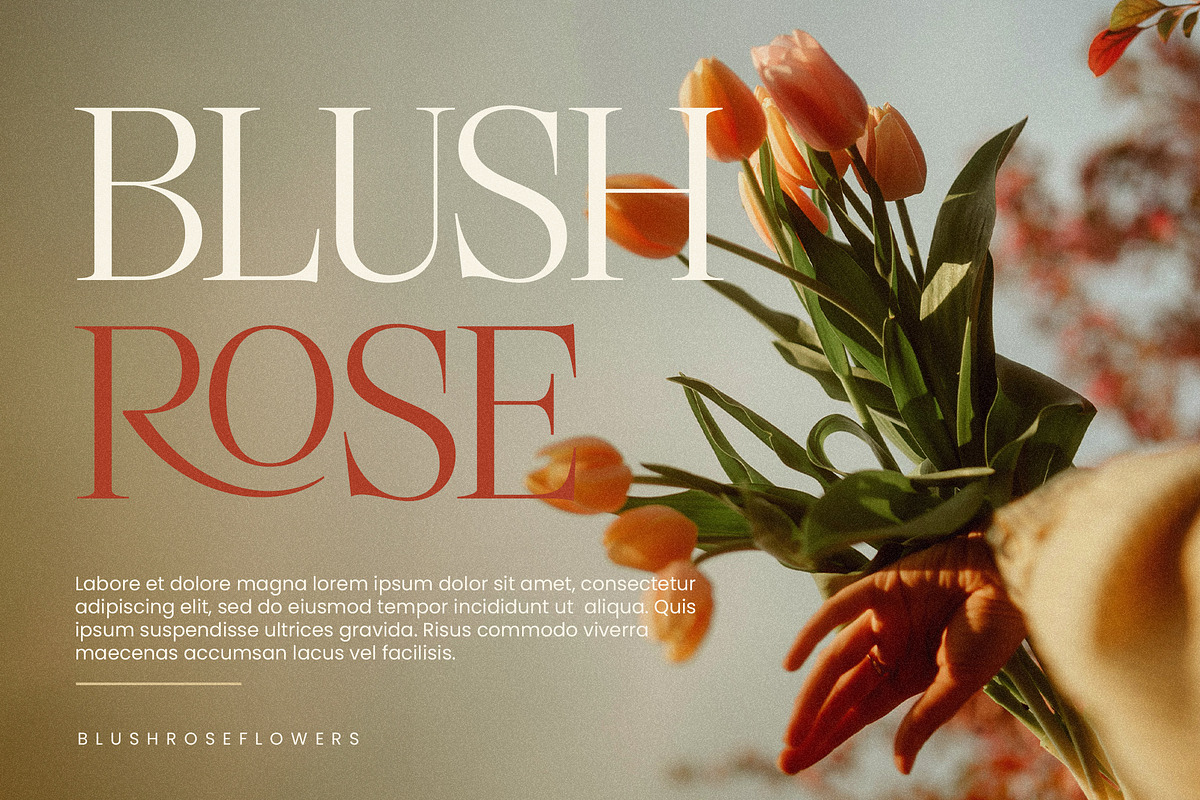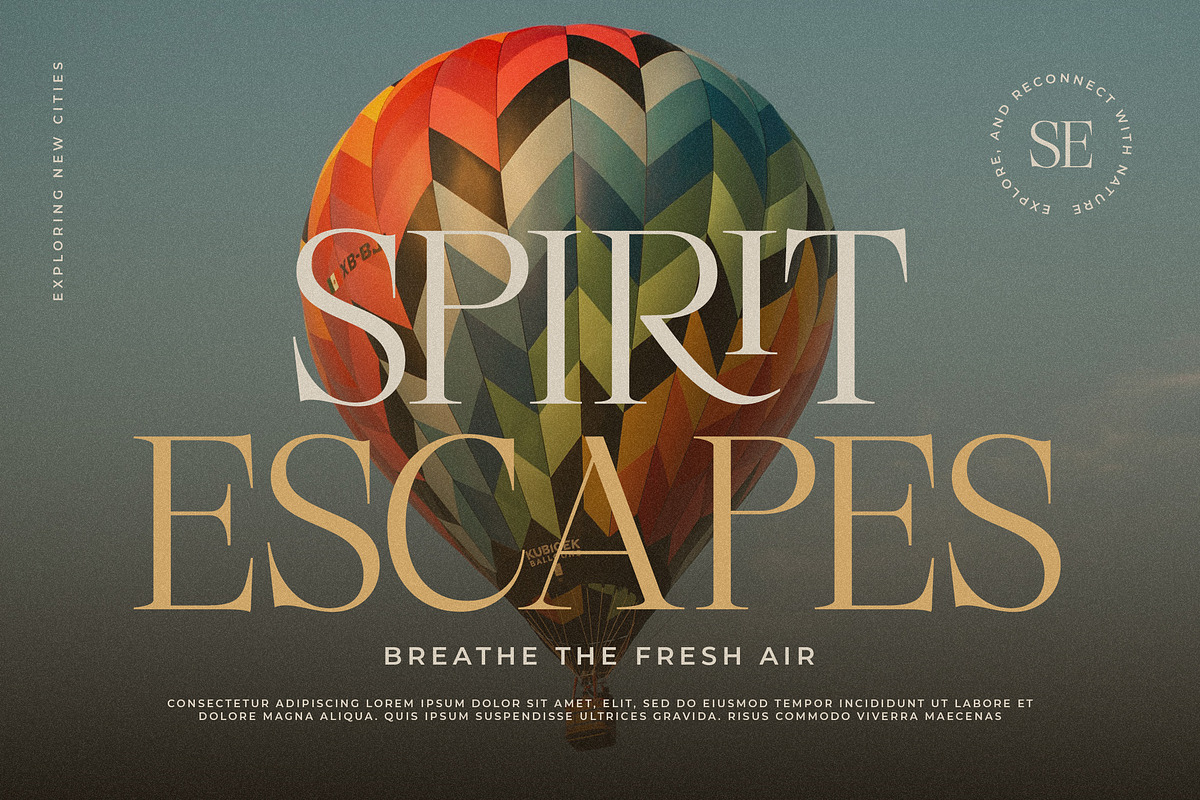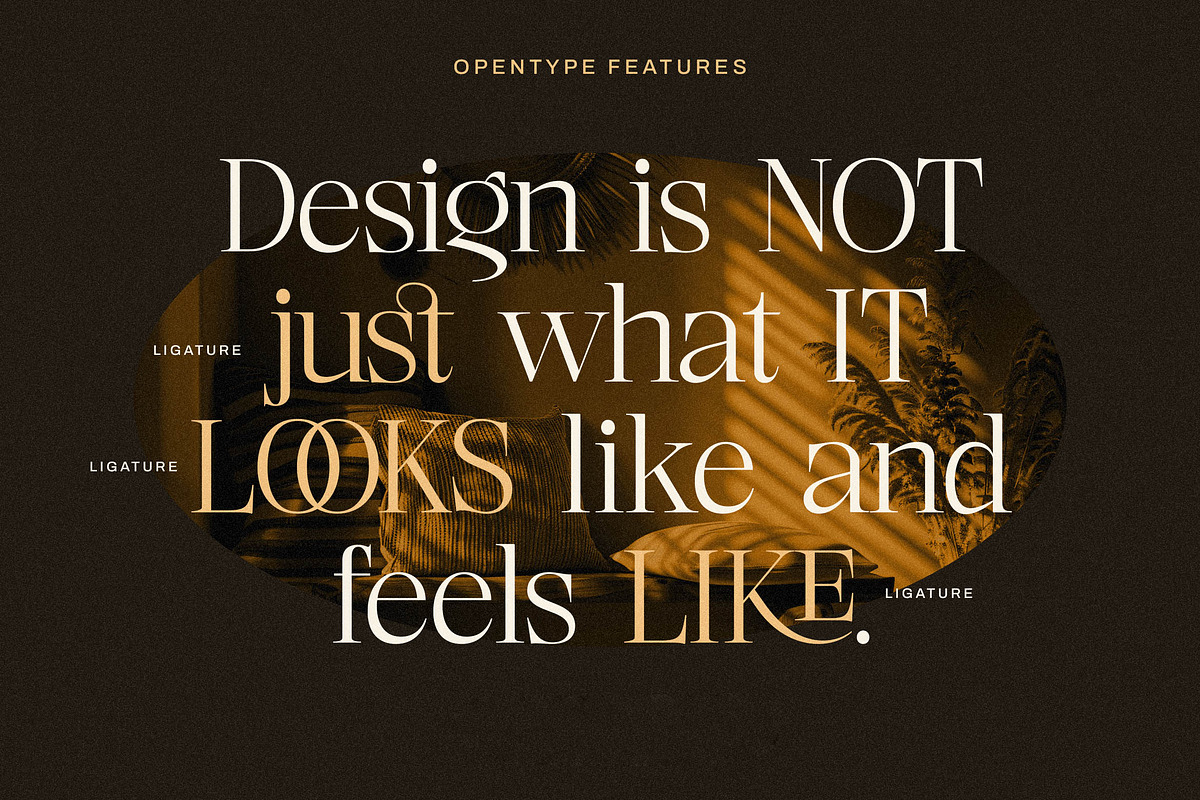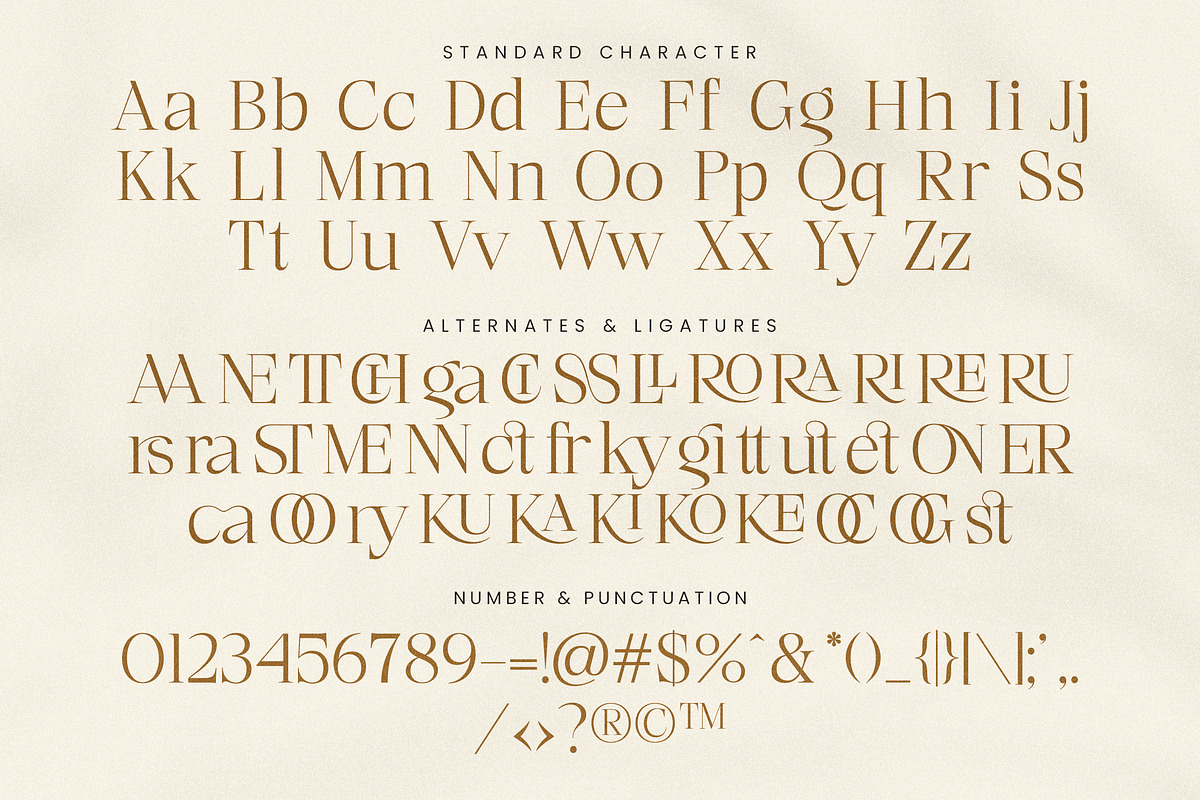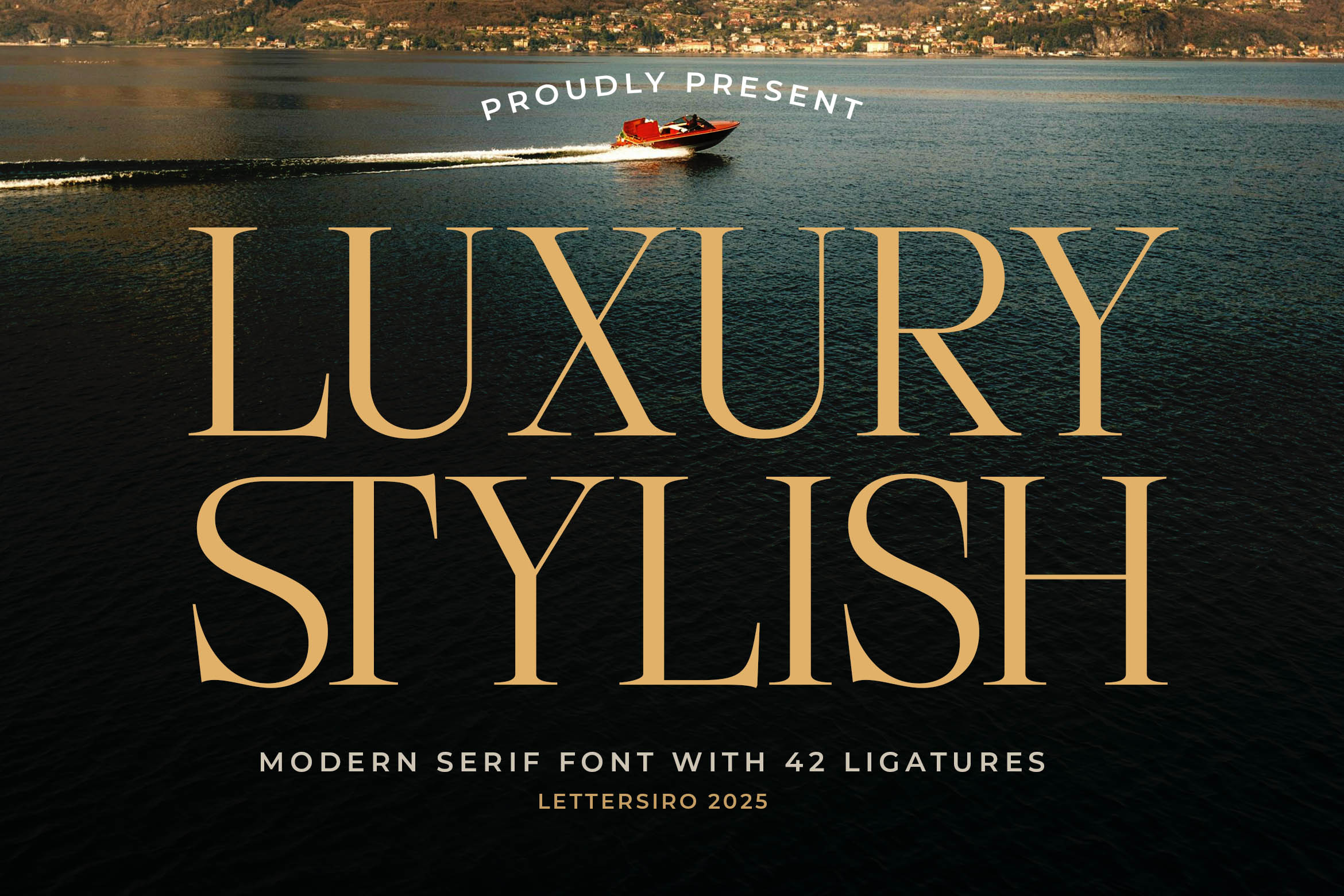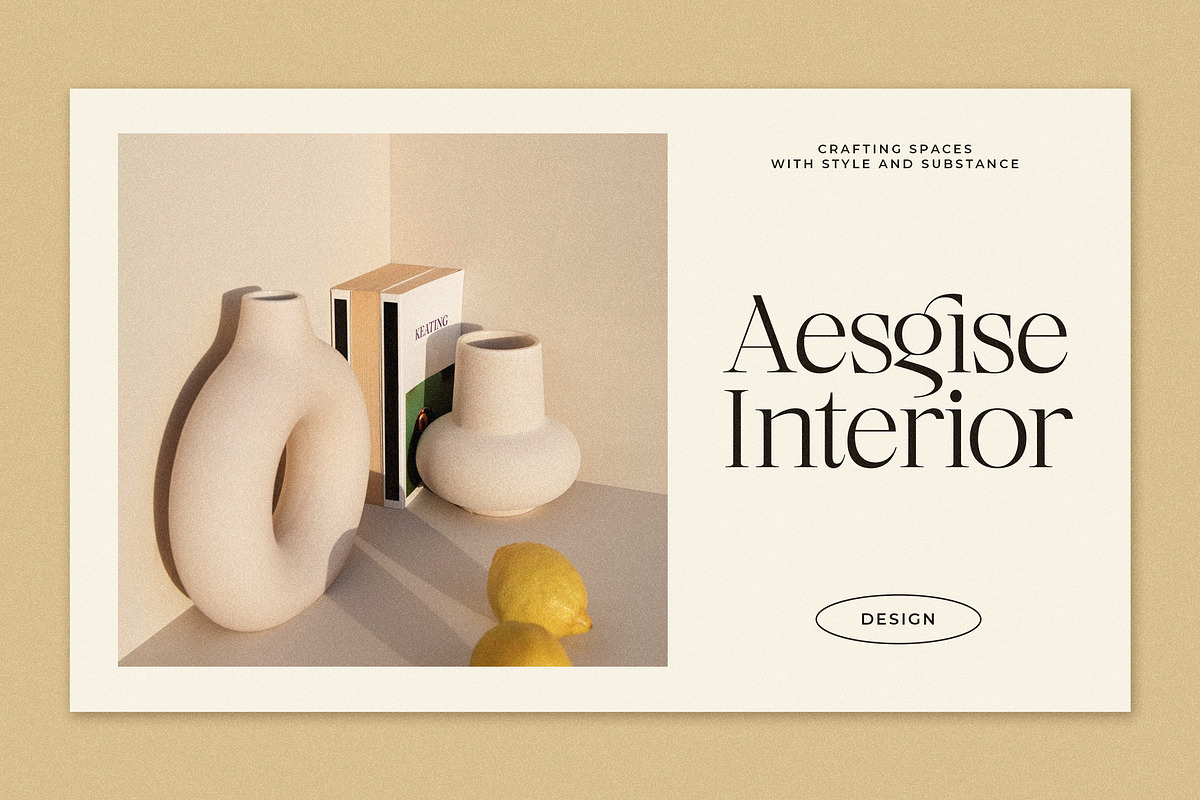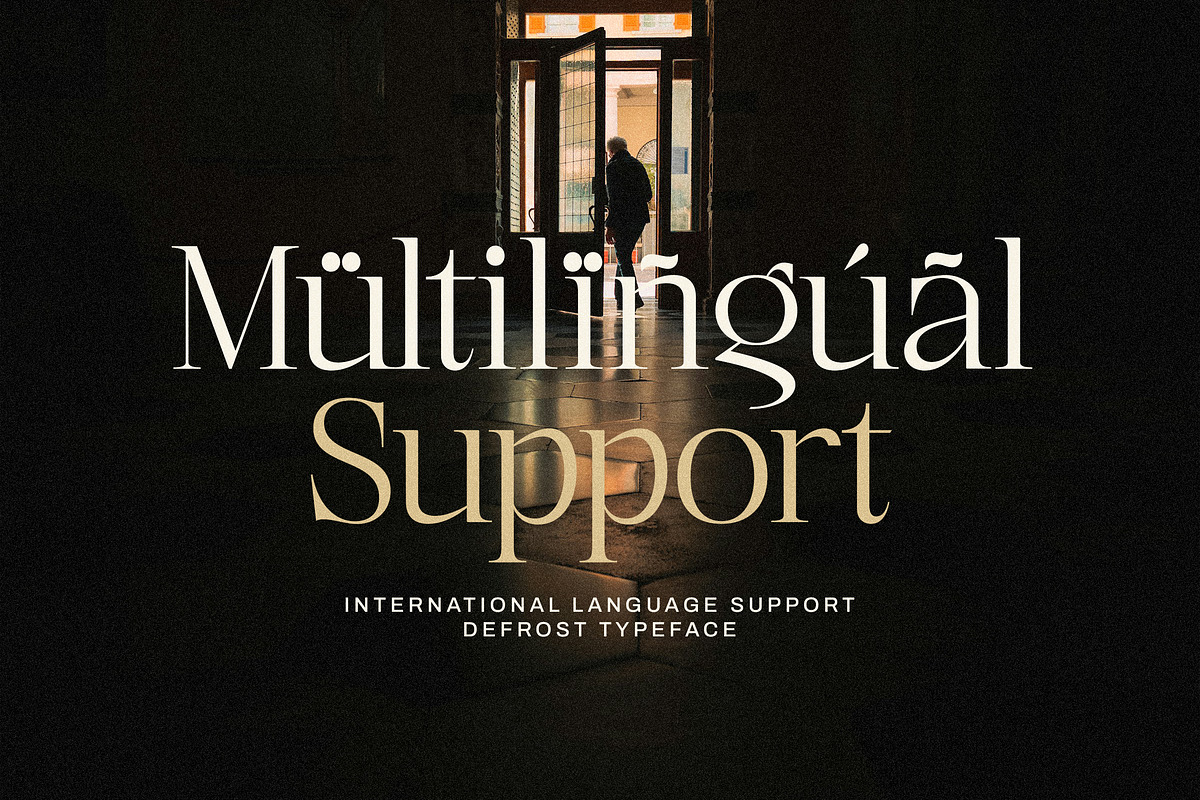
Luxury Styilsh Modern Serif Font
Luxury Stylish – Modern Serif Font with 42 Ligatures
Luxury Stylish is a modern serif font with sharp details and a clean, stylish presence. Designed to stand out in contemporary branding and visual identity projects, this typeface features strong contrast and sleek letterforms that feel bold, sharp, and current.
Packed with 42 unique ligatures, it allows designers to create expressive logos and custom headlines that feel one-of-a-kind. Whether you're designing packaging, brand marks, social media graphics, or editorial layouts, Luxury Stylish delivers a polished and professional look with modern sophistication—without losing its creative edge.
This font is built for standout typography with style, structure, and striking character combinations.
Modern Serif Style – Designed with strong contrast and stylish angles
42 Unique Ligatures – Perfect for logo design and creative headlines
Full Character Set – Uppercase, lowercase, numbers, punctuation, symbols
OpenType Features – Easily access alternates and ligatures in supported apps
Multilingual Support – Supports Western European languages
Logo Design – Use stylish ligatures to craft memorable brand marks
Editorial Layouts – Great for titles, magazines, and page headers
Packaging Design – Sharp, modern typography for high-impact visuals
Social Media Graphics – Create clean, eye-catching text content
Branding Projects – Build professional visual identity systems
Luxury Stylish is made for modern designers who want their typography to look sharp, stylish, and full of personality.